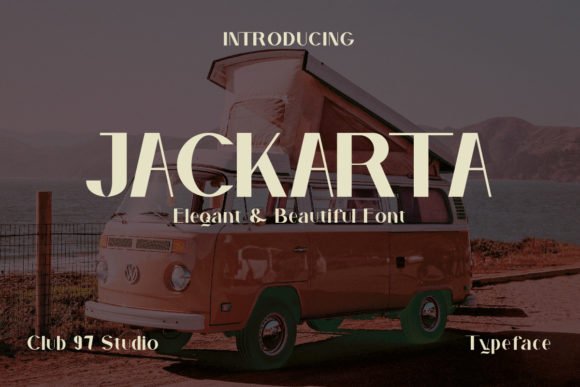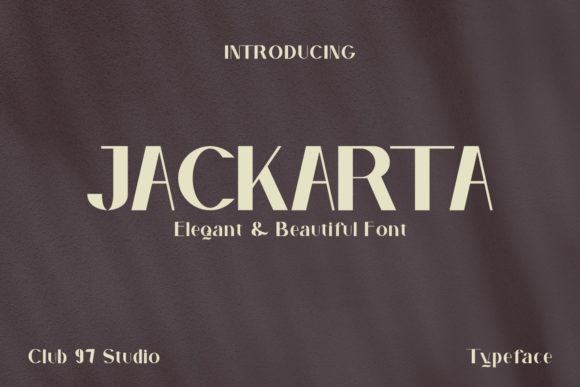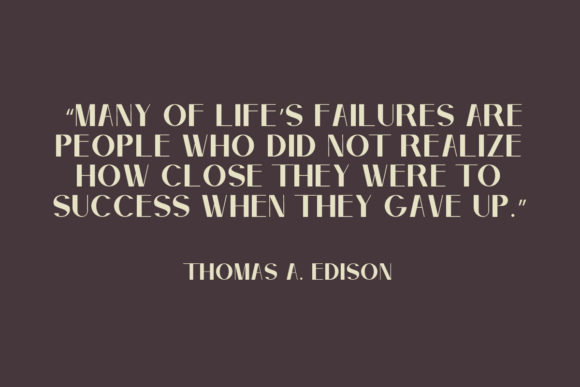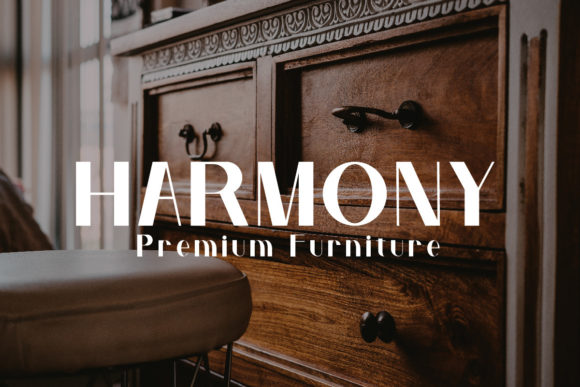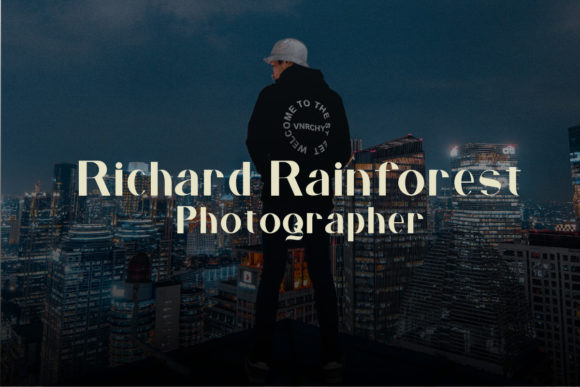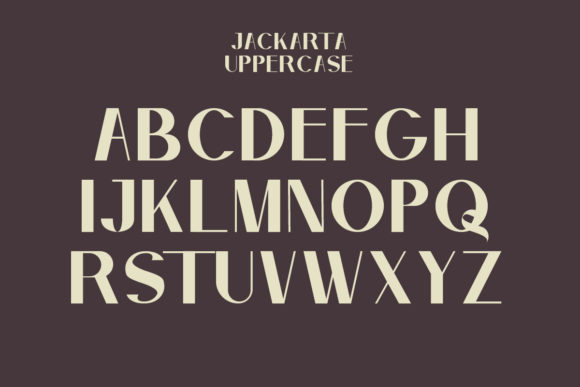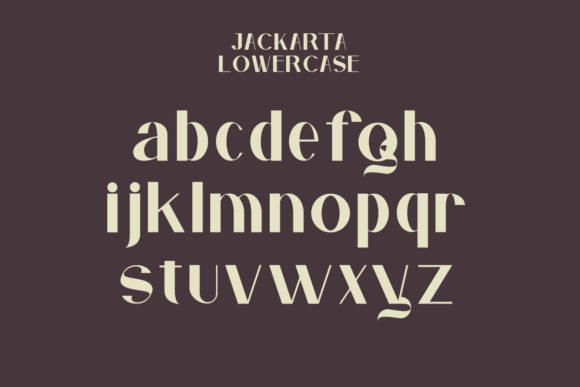
The Perfect Font to Elevate Your Creations
Have you ever found yourself stuck in the middle of a design project, struggling to find the right font to bring your vision to life? You’ve spent hours browsing through fonts, but none seem to capture the essence of your idea. This is where the magic of the right font comes in – and for many designers, that magic is the Jackarta Font.
This modern and elegant sans serif font is more than just a pretty face. With its versatility and timeless style, it has the power to elevate any creation, whether it’s a logo, a brochure, or a website. Whether you’re a seasoned designer or just starting out, the Jackarta Font is an incredible asset to have in your library, and we’re excited to dive into what makes it so special.
Jackarta Font Key Features
- Font Family: Jackarta Font is a sans-serif typeface designed for digital use.
- Character Set: Supports a wide range of languages, including Latin, Cyrillic, Greek, and many more.
- Unique Characteristics: Distinctive geometric shapes and clean lines, making it suitable for modern and minimalist designs.
Jackarta Font Review
I recently had the chance to work with the Jackarta Font, and I must say it’s a unique addition to any design project. ✨ One thing that stands out is its versatility – it’s perfect for creating eye-catching headlines, while still being legible enough for body text.
Another aspect that works well is its modern aesthetic. ✨ The font’s sleek lines and clean shapes make it a great choice for contemporary designs, from digital products to print materials.
Here are some key benefits:
- Highly customizable: the font comes with multiple weights, styles, and ligatures, giving you endless options for creating unique typography.
- Excellent for digital designs: the font is optimized for screens, ensuring it looks great on various devices and resolutions.
- Good for print materials: the font’s clear lines and legible characters make it suitable for print projects, from business cards to brochures.
- May not be ideal for small text: the font’s unique design can make small text sizes appear cluttered or difficult to read.
- Limited language support: the font may not be optimized for certain languages, which could lead to display issues.
Overall, the Jackarta Font is a solid choice for designers looking to add some flair to their projects. While it may have some limitations, its versatility and modern aesthetic make it a valuable addition to any design toolbox.
Getting the Most Out of Jackarta Font
For the best results, use the Jackarta font in conjunction with other design elements, such as bold colors and textures. You can also experiment with different font sizes and styles to create a visually appealing design.
The Jackarta font is suitable for a variety of designs, including logos, business cards, and marketing materials. It’s also a great choice for creating eye-catching headlines and titles.